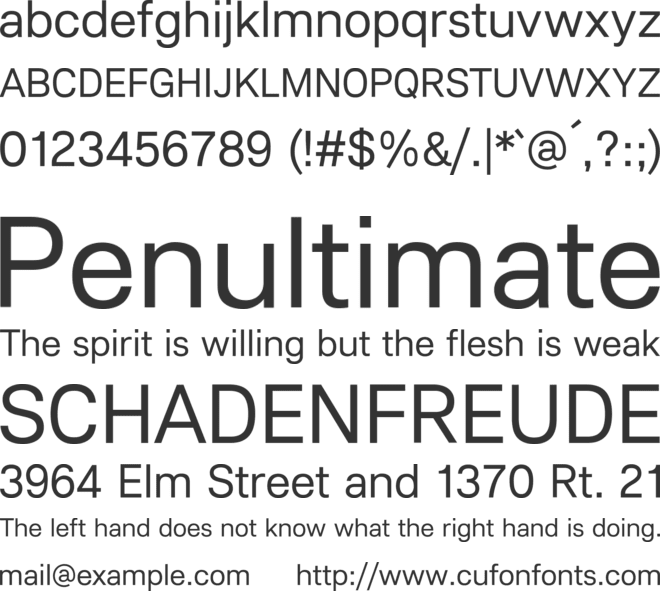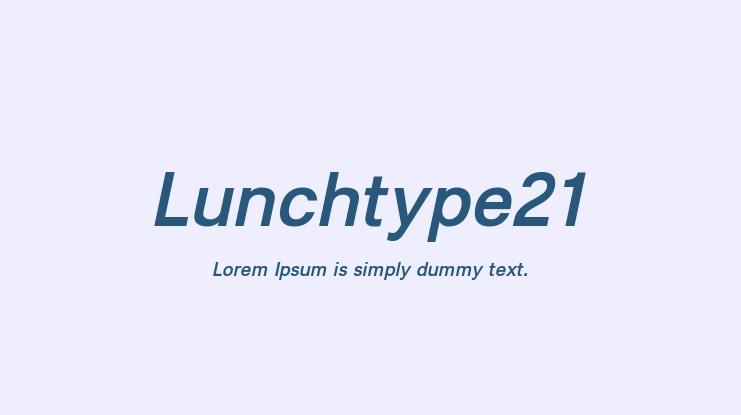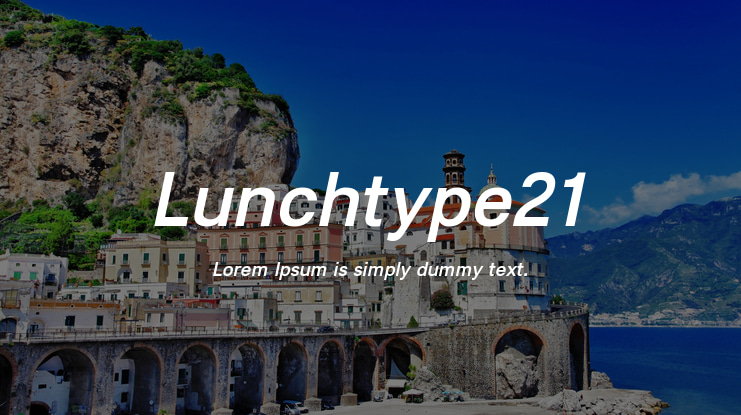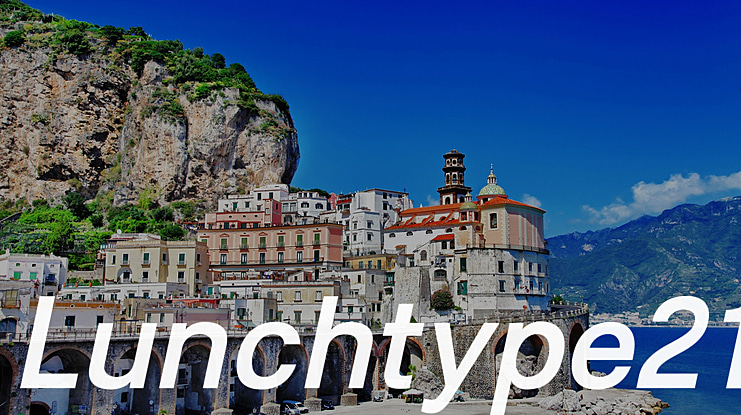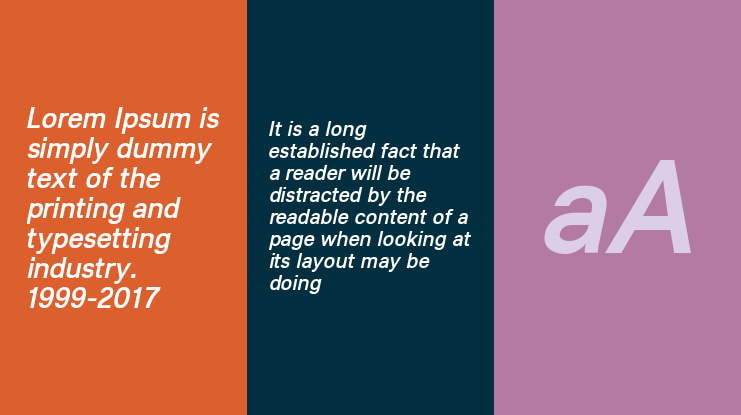
Lunchtype21 Font Family
Typeface(regular) was created during lunch hour (13:00-14:00) for #The100DayProject and can be found viewed over at Lunchtype.com or though #lunchtype @instagram.